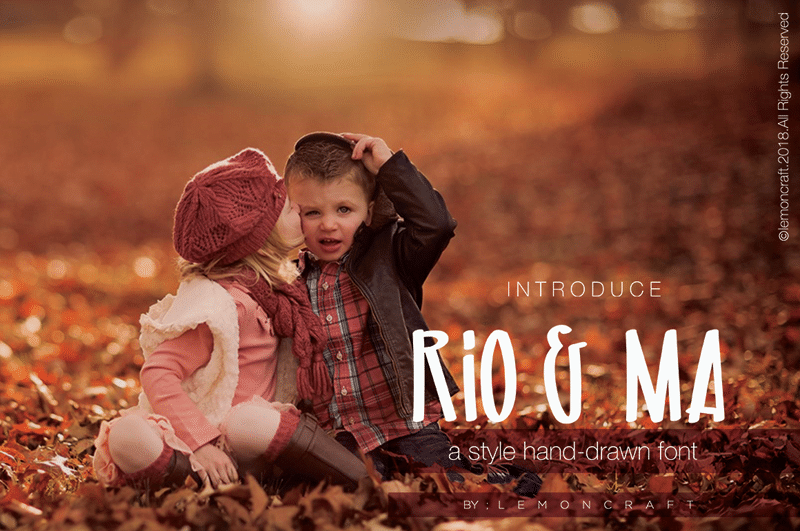
Rio & Ma Script Font
Rio Ma Script Font
Rio & Ma Script Font is high quality Brush font, designed by Lemoncraft.s. You can use this font for both personal & commercial.